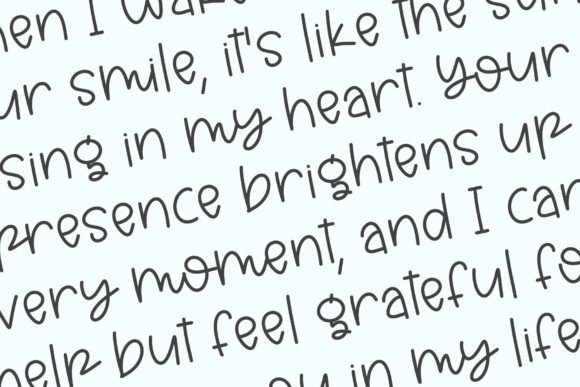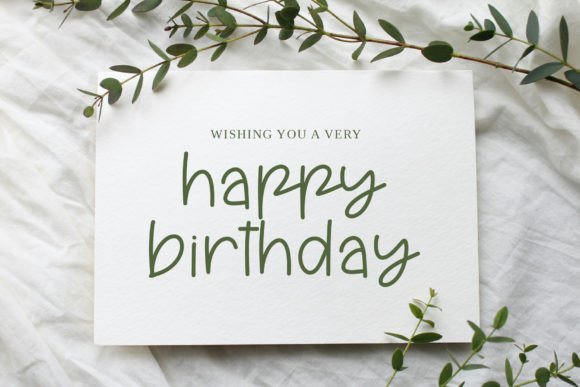
Hand Hover Font
Hand Hover is a sweet and cute handwritten font. Fall in love with its incredibly versatile style and use it to create gorgeous wedding invitations, beautiful stationary art, eye-catching social media posts, and much more!